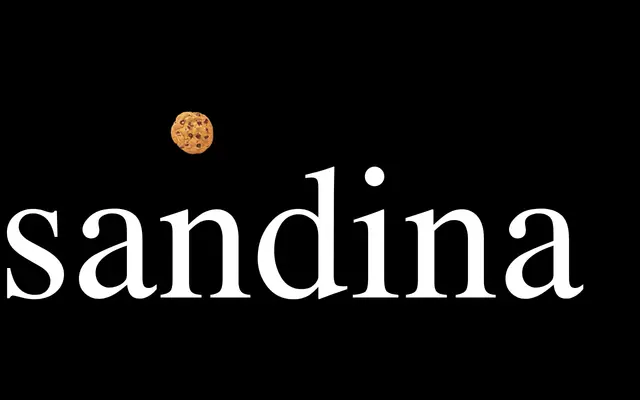
RST Trasandina
A sans-serif typeface from Reset Type Studio with variable weight and size axes.
RST Trasandina is offered by Reset Type Studio with at least weight and size variation, suggesting a variable or multi-axis family. The scraped page content is minimal, making detailed classification difficult, but the naming convention and foundry context point to a contemporary geometric or humanist sans. Further details on language support, italics and weight range are not available from the provided content.
The name and minimal page content suggest a geometric or humanist sans-serif direction typical of contemporary independent foundries, though the scraped content is too sparse to confirm precise subcategory with certainty.